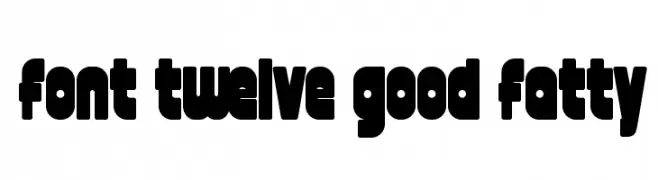
( Fonts by Manfred Klein - manfred-klein.ina-mar.com )
A bold, geometric font with a modern, outlined style.
( Fonts by Manfred Klein - manfred-klein.ina-mar.com )
A bold, geometric font with a modern and futuristic style.
( Fonts by Manfred Klein - manfred-klein.ina-mar.com )
A bold, geometric font with a shadow effect for a modern, three-dimensional look.
( Fonts by Manfred Klein - manfred-klein.ina-mar.com )
A bold, geometric font with a modern, futuristic style.
( Fonts by Juan Casco - www.juancasco.net )
A dramatic, ornate Gothic-style font with intricate flourishes and sharp angles.
( Fonts by Juan Casco - www.juancasco.net )
An ornate Gothic-inspired font with bold, angular lines and intricate flourishes.
( Fonts by Juan Casco - www.juancasco.net )
An artistic script font with flowing, interconnected letters and whimsical flourishes.
( Fonts by JW )
A bold, graffiti-inspired font with a dynamic, hand-drawn style.
( Fonts by Silvan Kaeser - www.planet-luzern.ch )
Bold, italicized font with a modern and dynamic style.
( Fonts by Silvan Kaeser - www.planet-luzern.ch )
A bold, modern sans-serif font with a condensed and professional appearance.
A whimsical, sketch-like font with abstract, tribal-inspired characters.
A bold, ornate Blackletter font with intricate, angular letterforms.
A bold, playful font with floral patterns and rounded characters.
A bold, dynamic font with high contrast and a modern, artistic style.
A quirky pictogram font with cartoonish, illustrative icons.
Whimsical pictorial font with silhouette illustrations for each character.
Whimsical pictorial font with vintage silhouette illustrations.
A bold, rounded sans-serif font with a modern and approachable style.
( Fonts by Casady & Greene )
A bold, geometric font with high contrast and a modern, retro-futuristic style.
( Fonts by Casady & Greene )
A bold, geometric font with angular and circular forms.
A bold, modern sans-serif font with thick, uniform strokes.
A bold, stencil-like font with high contrast and geometric precision.
( Fonts by Dieter Steffmann )
A bold, rounded font with a contour effect, perfect for playful and eye-catching designs.
( Fonts by Dieter Steffmann )
A bold, playful font with a shadow effect, perfect for eye-catching designs.
A bold, dynamic font with thick strokes and sharp angles, perfect for impactful designs.